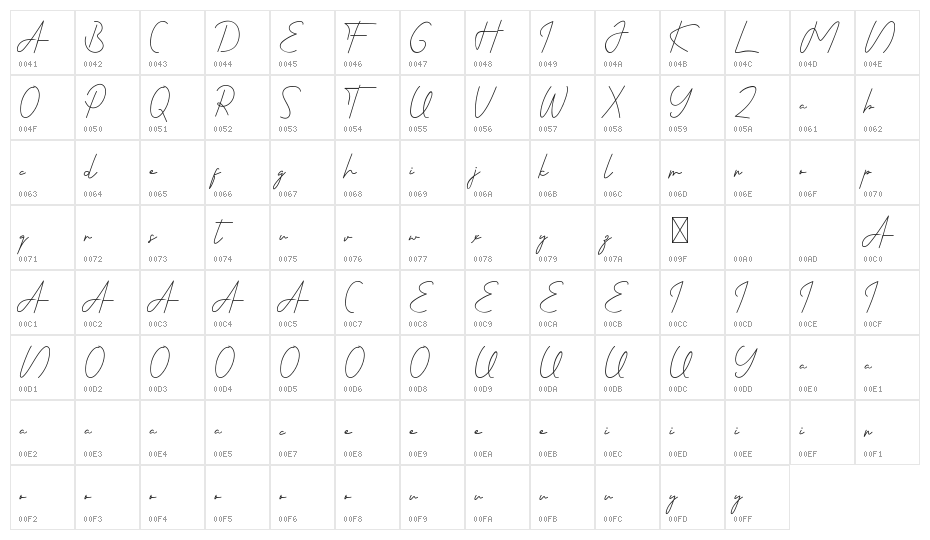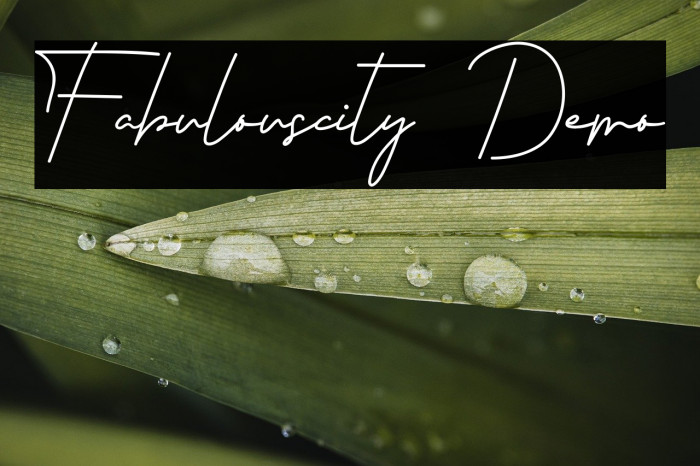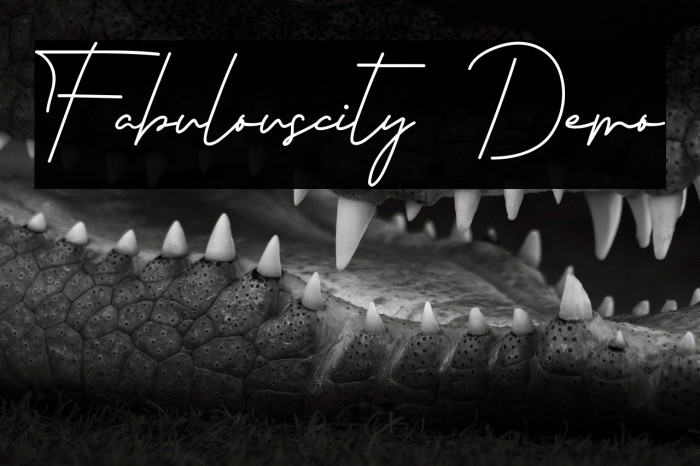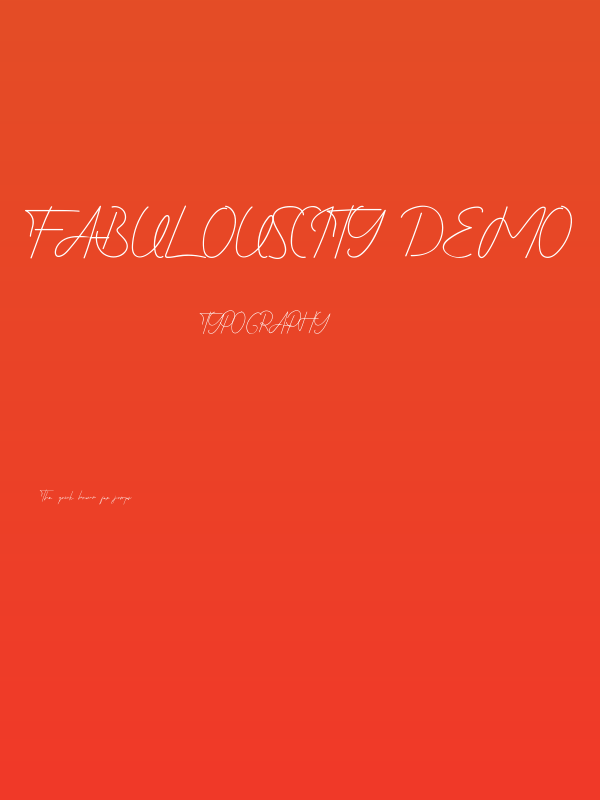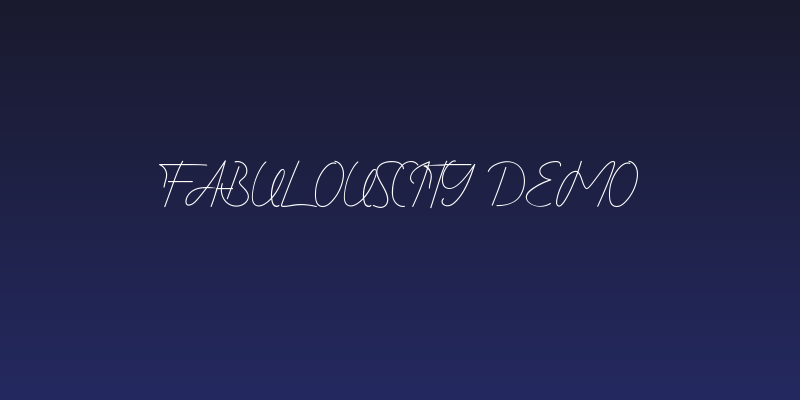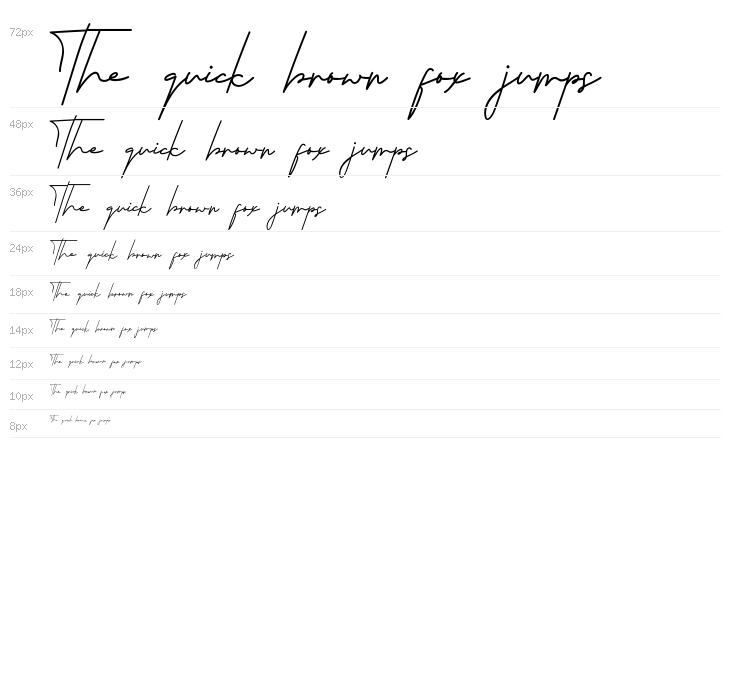
Fabulouscity Demo Font
Fabulouscity Demo Description
This font features a delicate and elegant script style with a handwritten appearance. The uppercase letters are tall and slender, with a slight slant that adds a sense of motion and fluidity. The lowercase letters are more compact, maintaining a consistent flow with smooth curves and loops. The characters are connected, enhancing the cursive aesthetic. The numbers and special characters follow the same graceful style, ensuring a cohesive look across all text elements. This font exudes sophistication and charm, making it suitable for projects that require a personal touch.
| Proposed Projects | Ideal for wedding invitations, greeting cards, personal branding, and elegant stationery. |